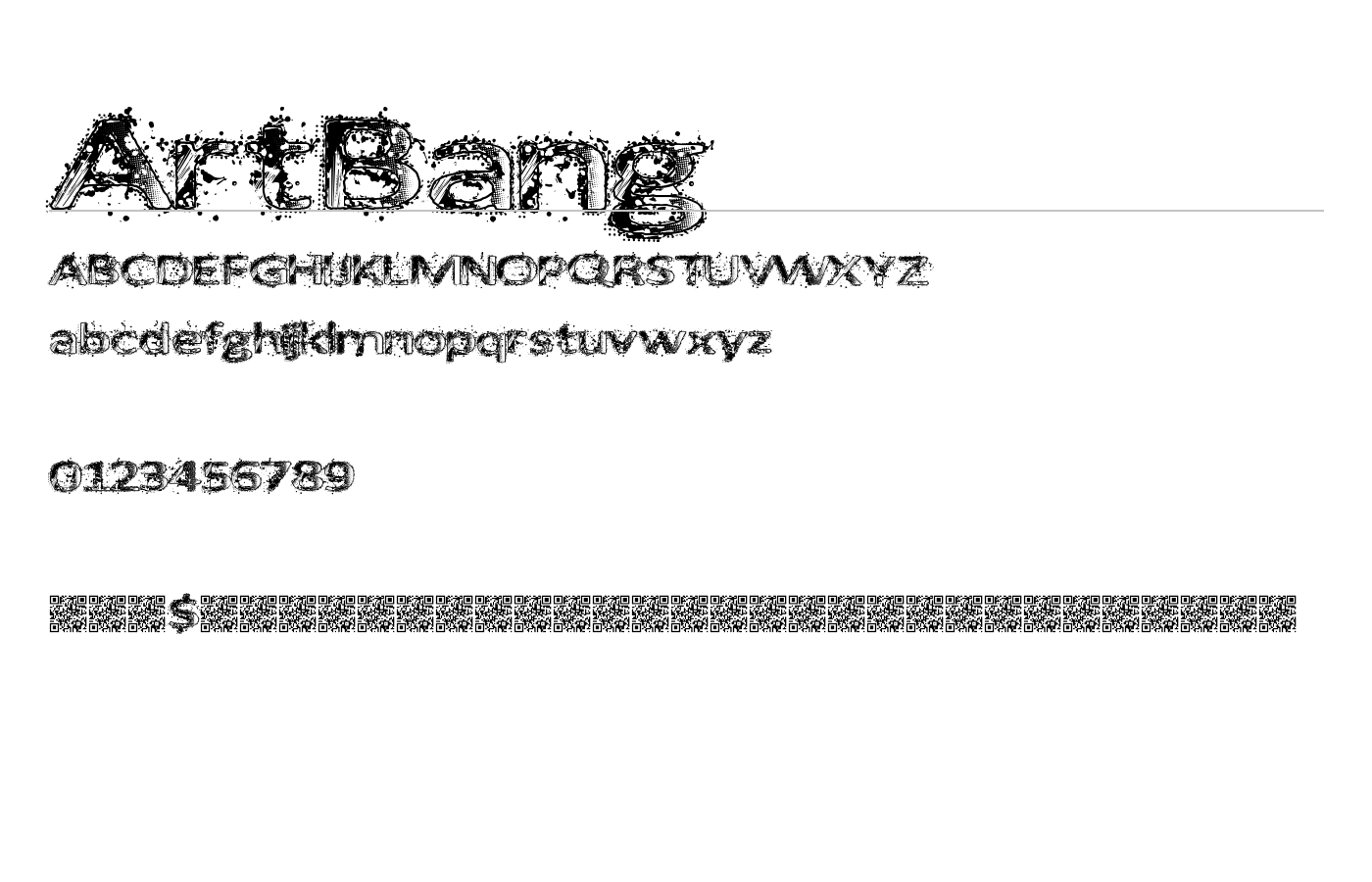
ArtBang Font is a bold, distressed sans serif with a gritty, textured appearance that adds a sense of urban edge and raw creativity. Its rough, splattered strokes create a dynamic and energetic vibe, making it ideal for contemporary designs seeking a rebellious or artistic flair. This font works best in posters, logos, and headlines where a striking, unconventional look is desired to grab attention and express individuality.
ArtBang Font
About ArtBang Font